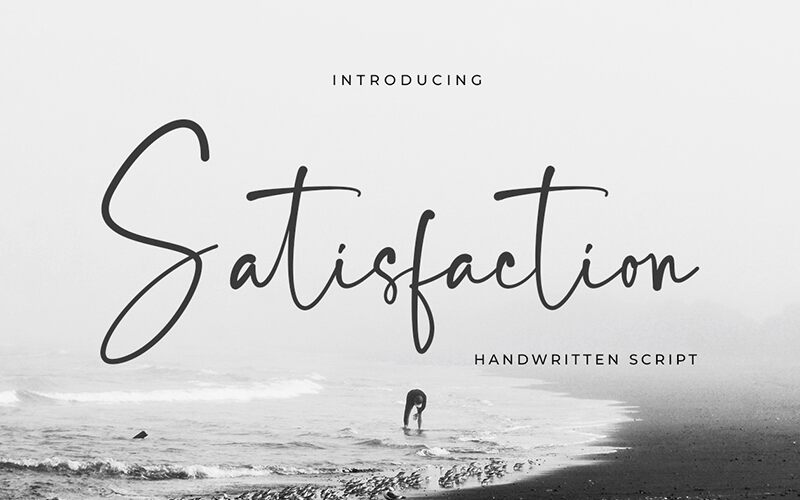
Satisfaction, a captivating handwritten font crafted by Bluestype Studio, exudes a delightful sense of effortless charm and casual elegance. With its light, flowing strokes and expressive ligatures, this font invites the reader to indulge in its warm, inviting aesthetic. The Satisfaction font's organic, slightly imperfect nature lends an authentic, handmade appeal that can infuse any design with a touch of genuine personality.
This versatile font can breathe life into a wide range of design projects, from eye-catching branding and packaging to heartfelt stationery and editorial layouts. Its unique character and playful yet refined style make it an excellent choice for creating memorable, personalized designs that connect with the audience on an emotive level.
Satisfaction